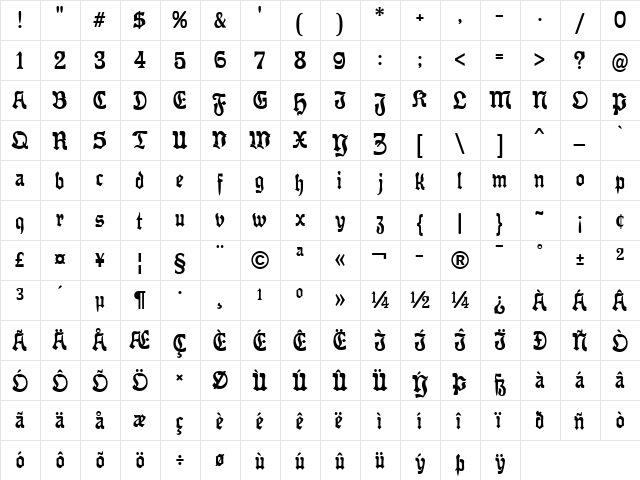
Offenbacher Reform CAT Regular
| Foundry | CAT-Fonts, Peter Wiegel, nach Roos&Junge, Offenbach |
| Designer | Peter Wiegel nach Roos&Junge Offenbach |
Design Context for Offenbacher Reform CAT Typeface
Offenbacher Reform CAT takes a measured approach to typography — its balanced proportions and neutral character make it a reliable workhorse for both digital and print work.